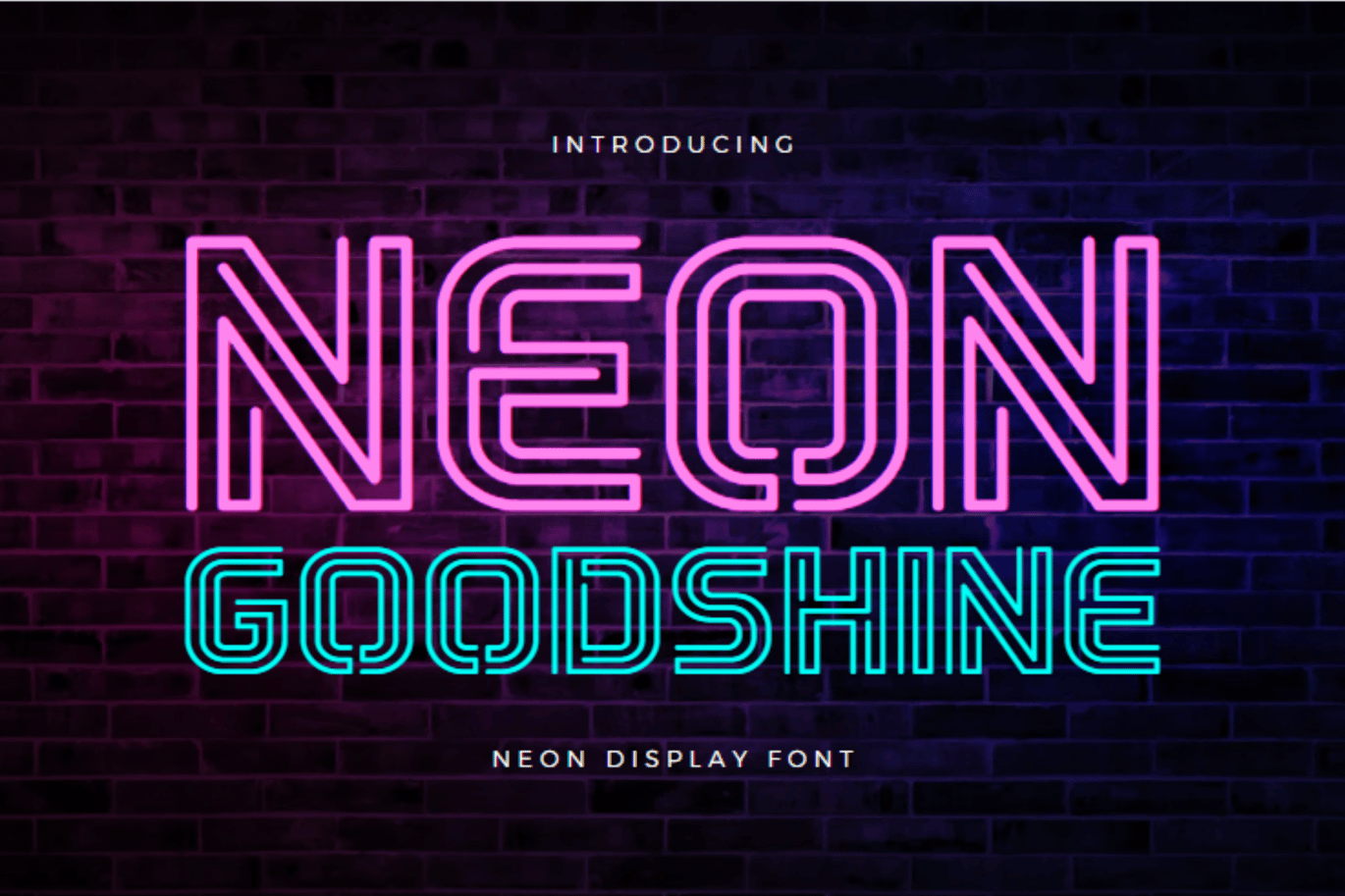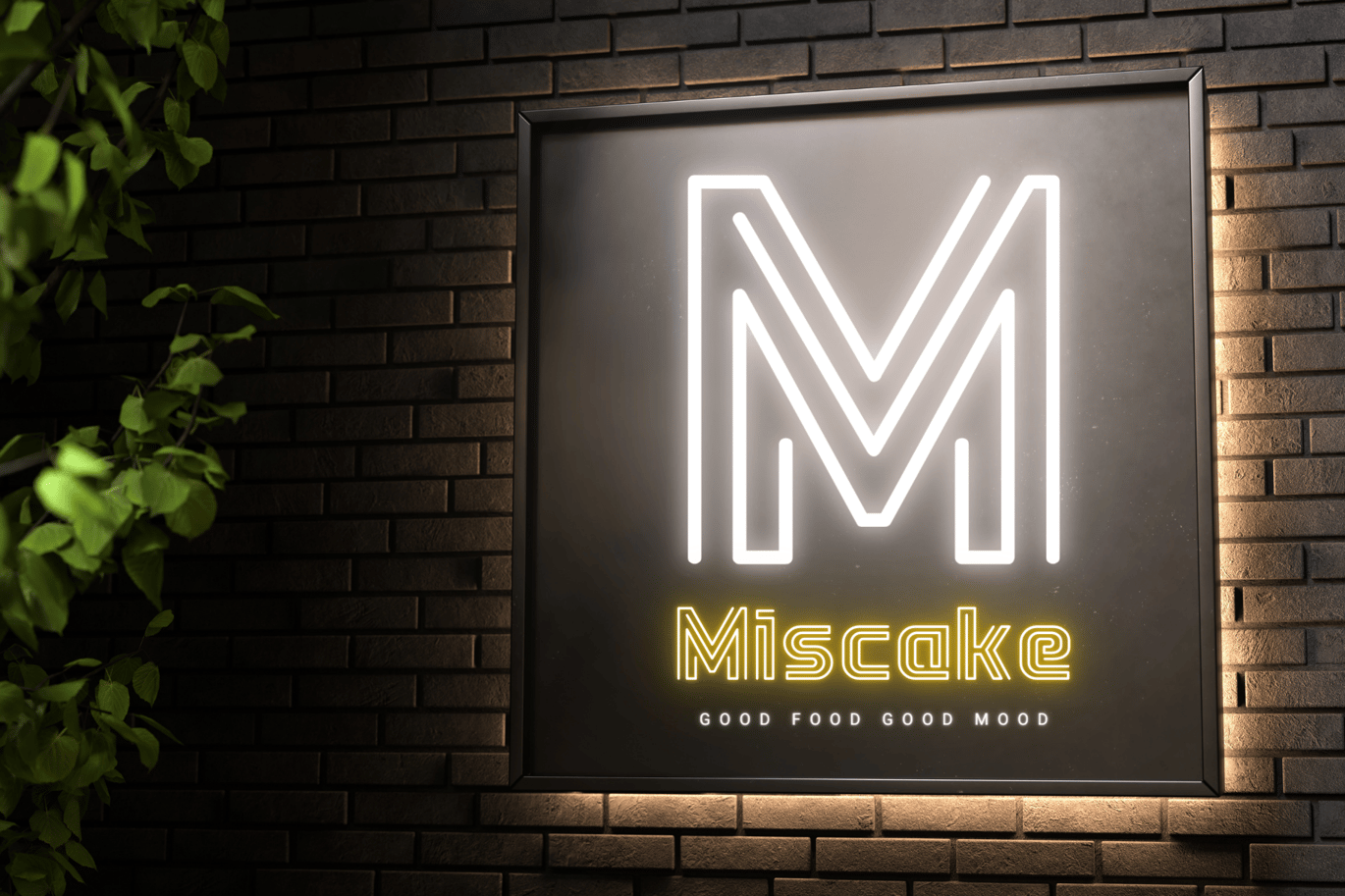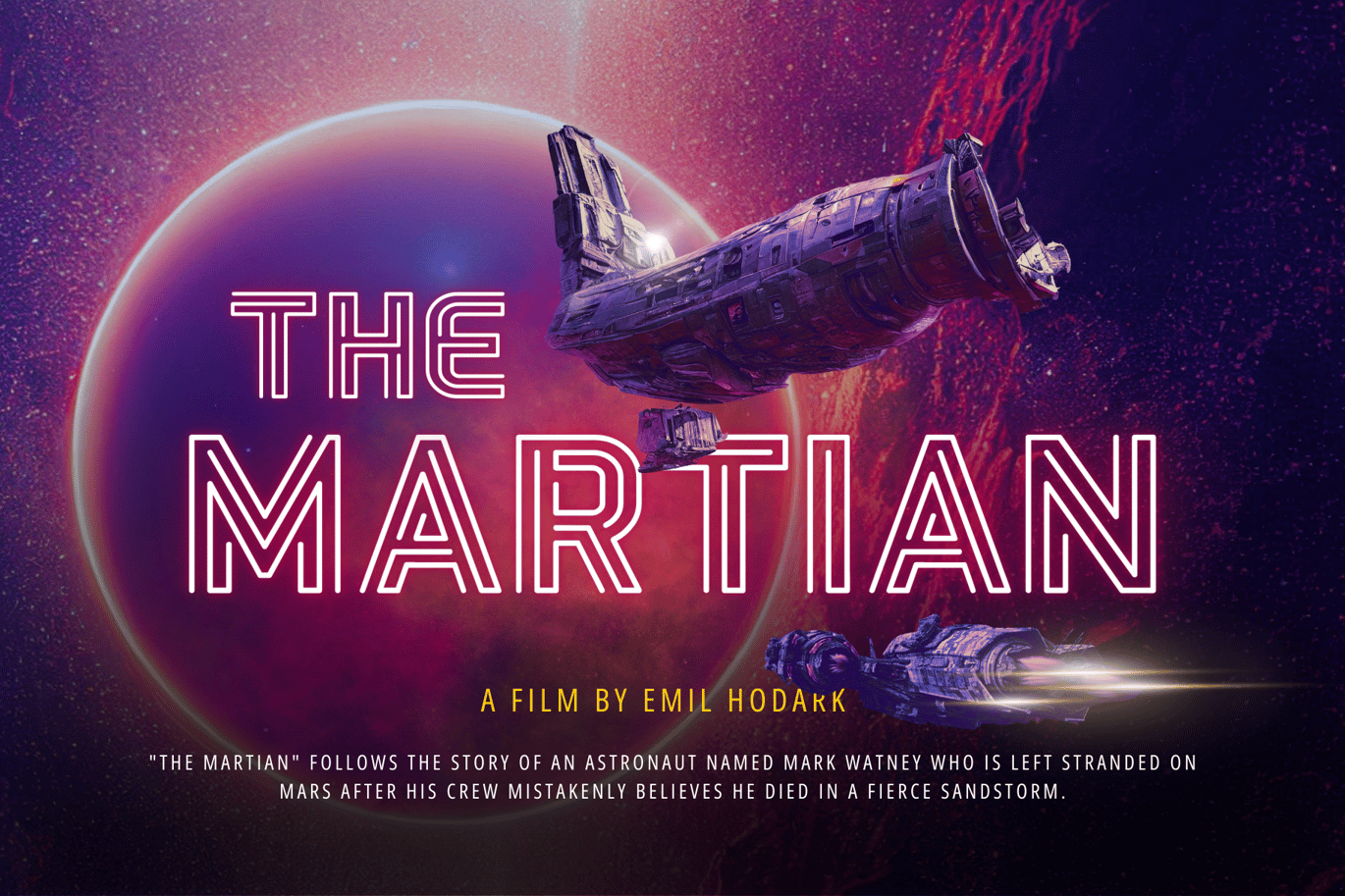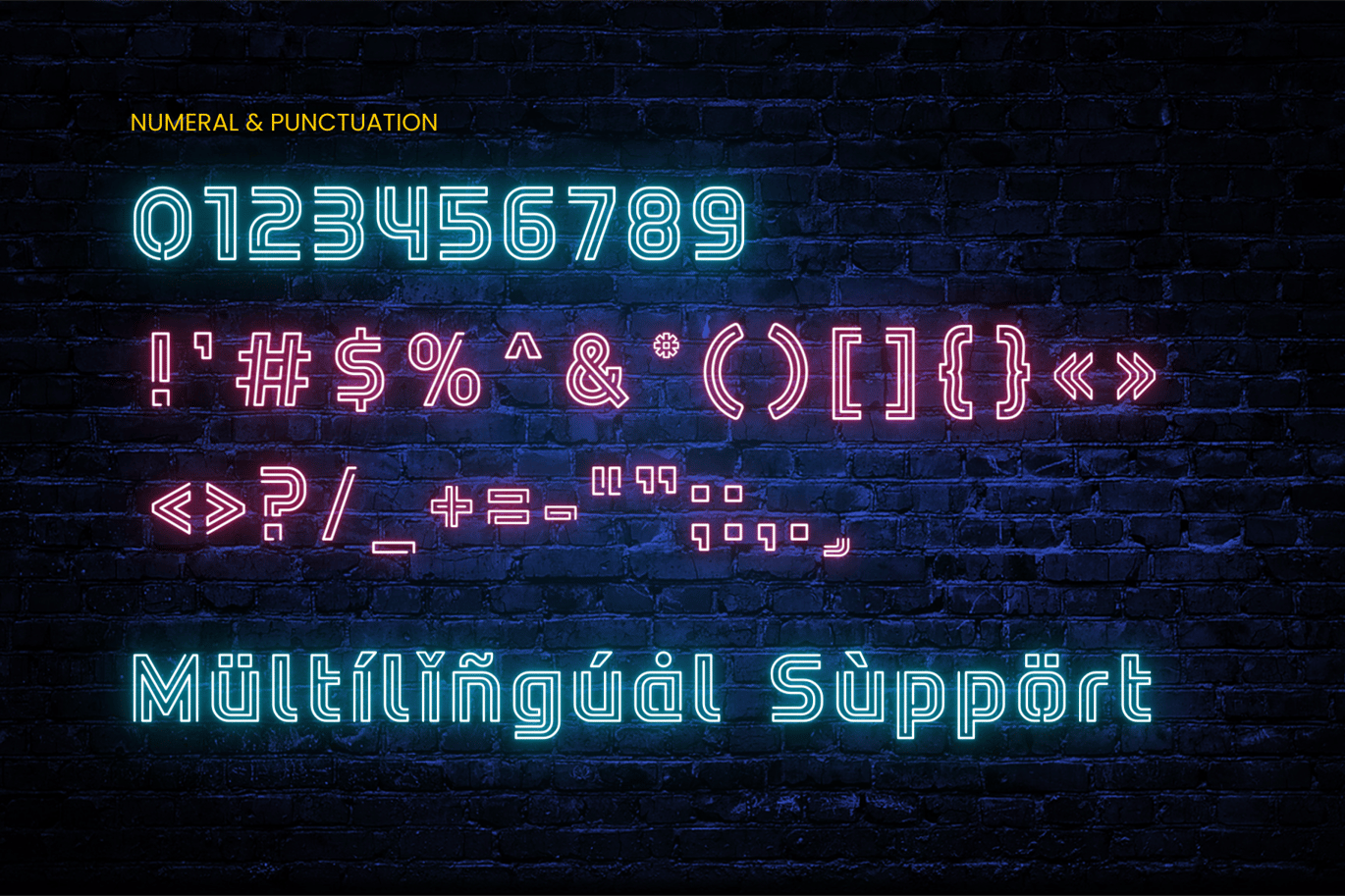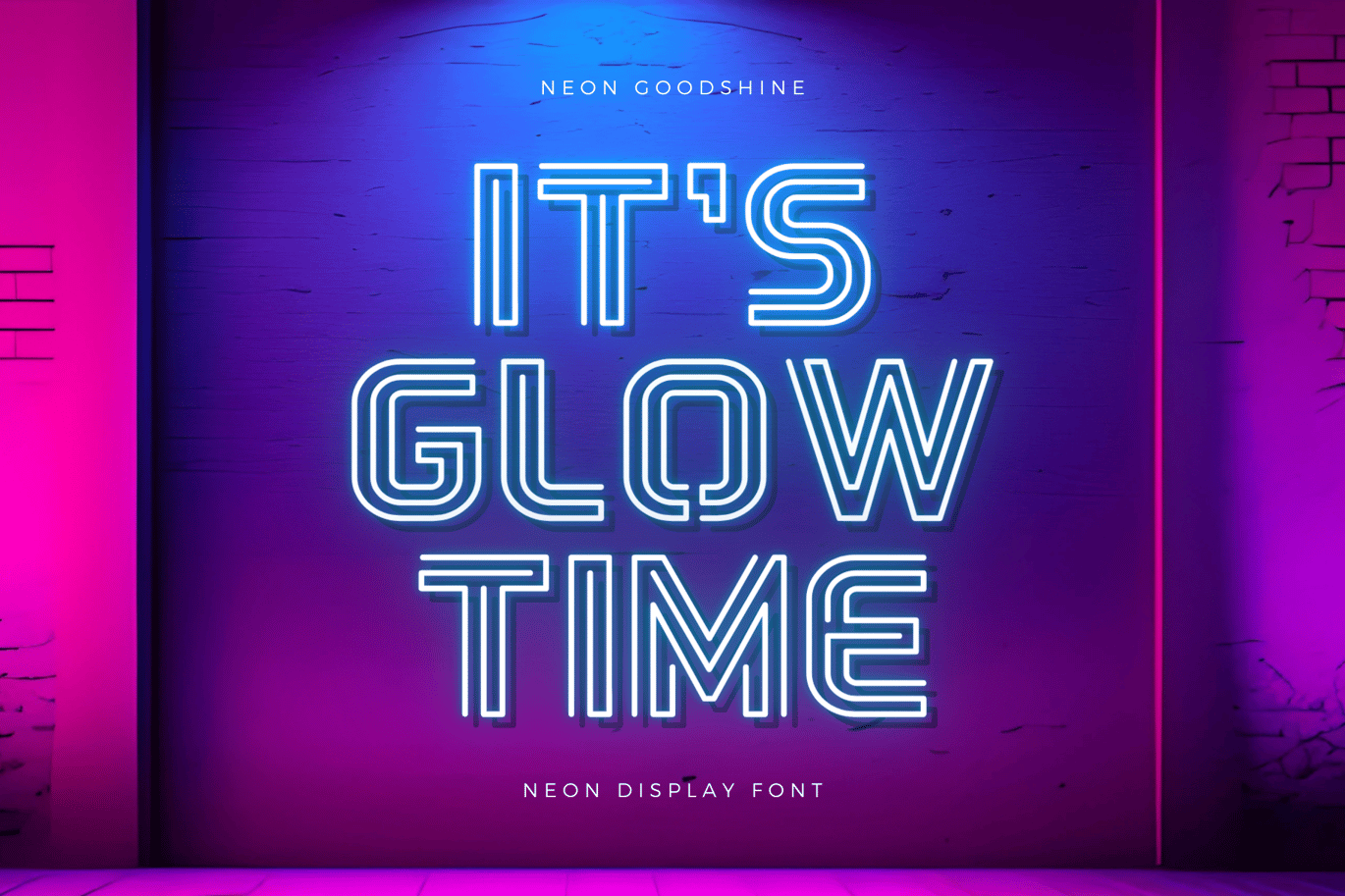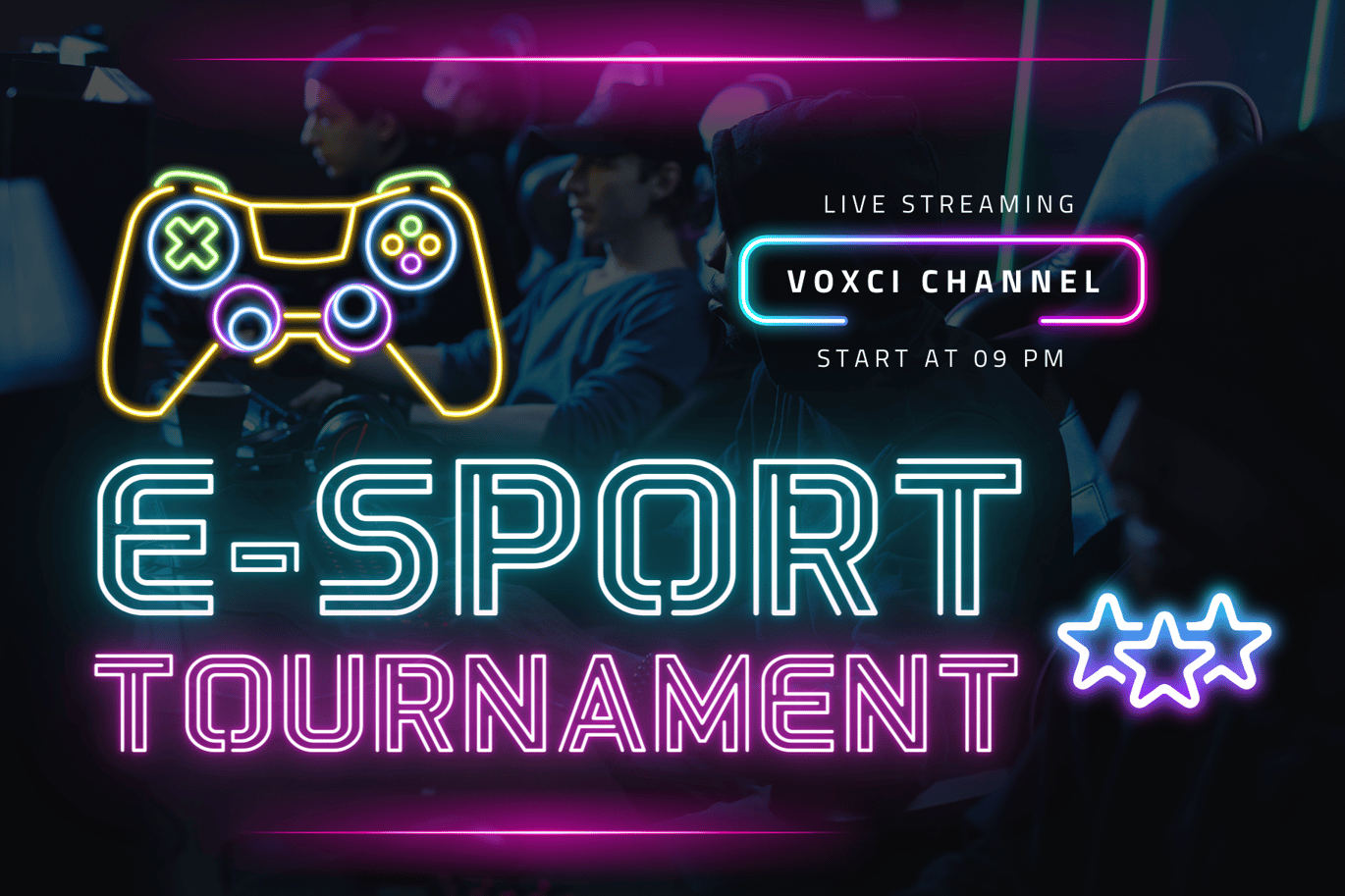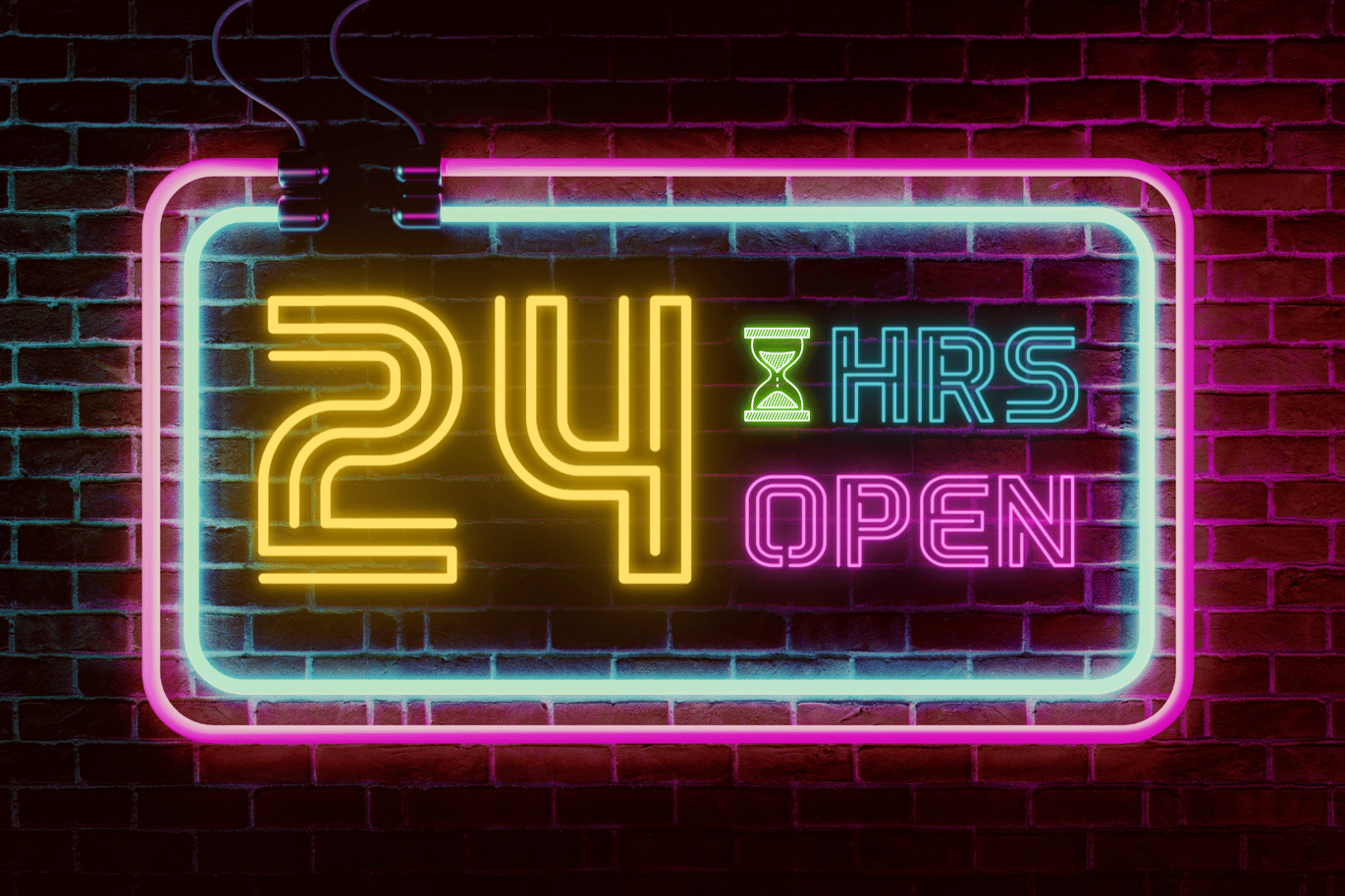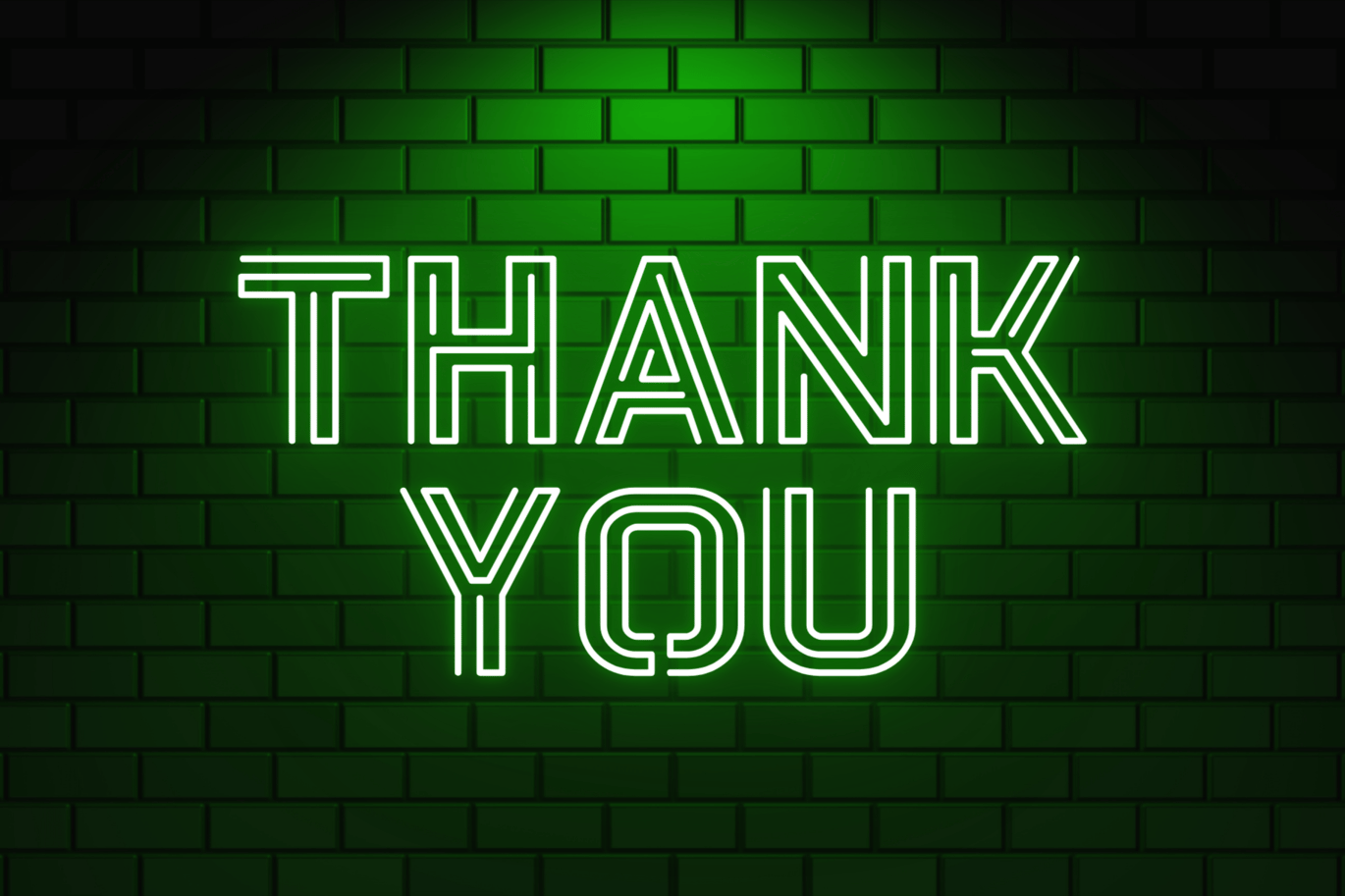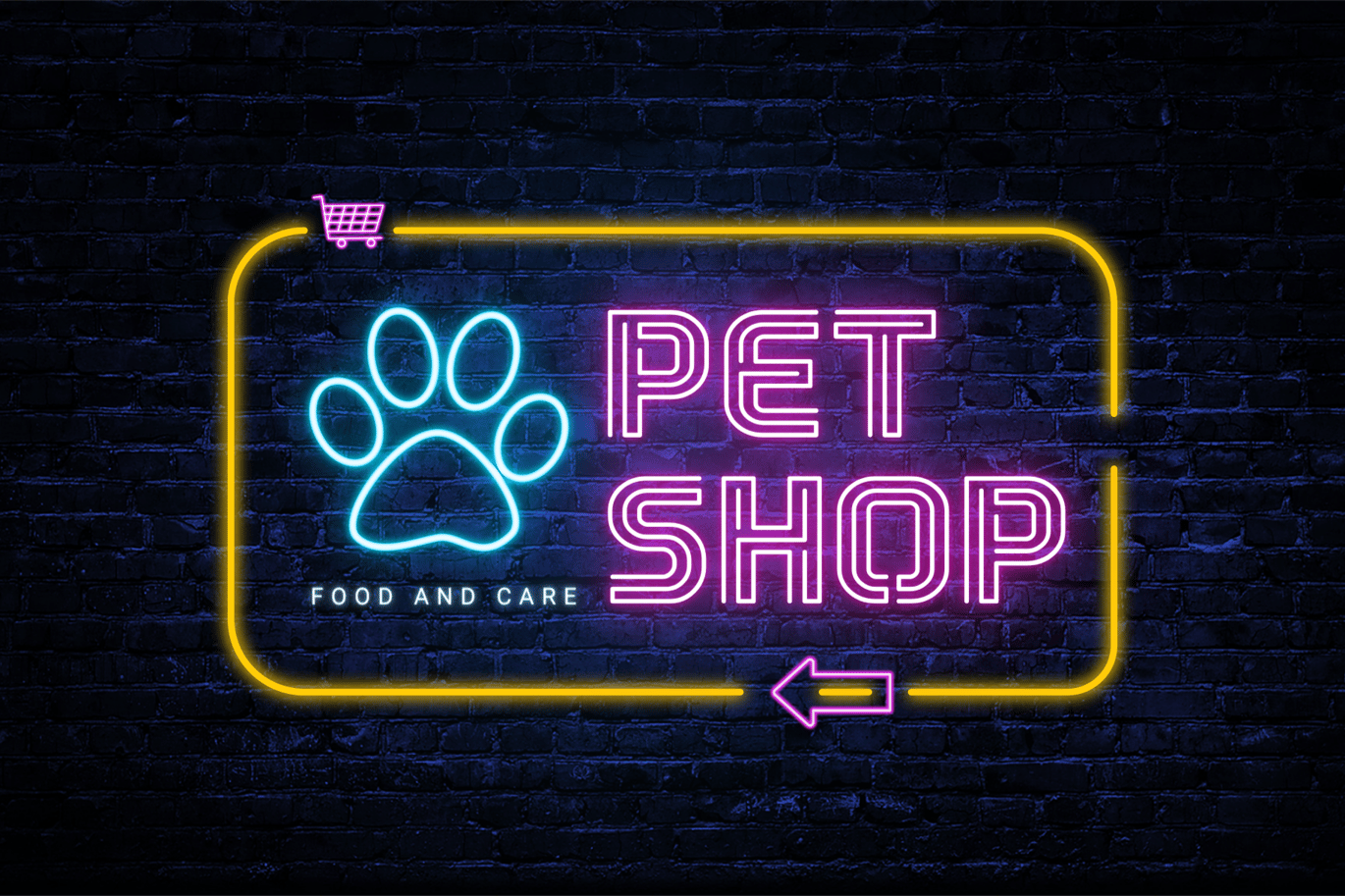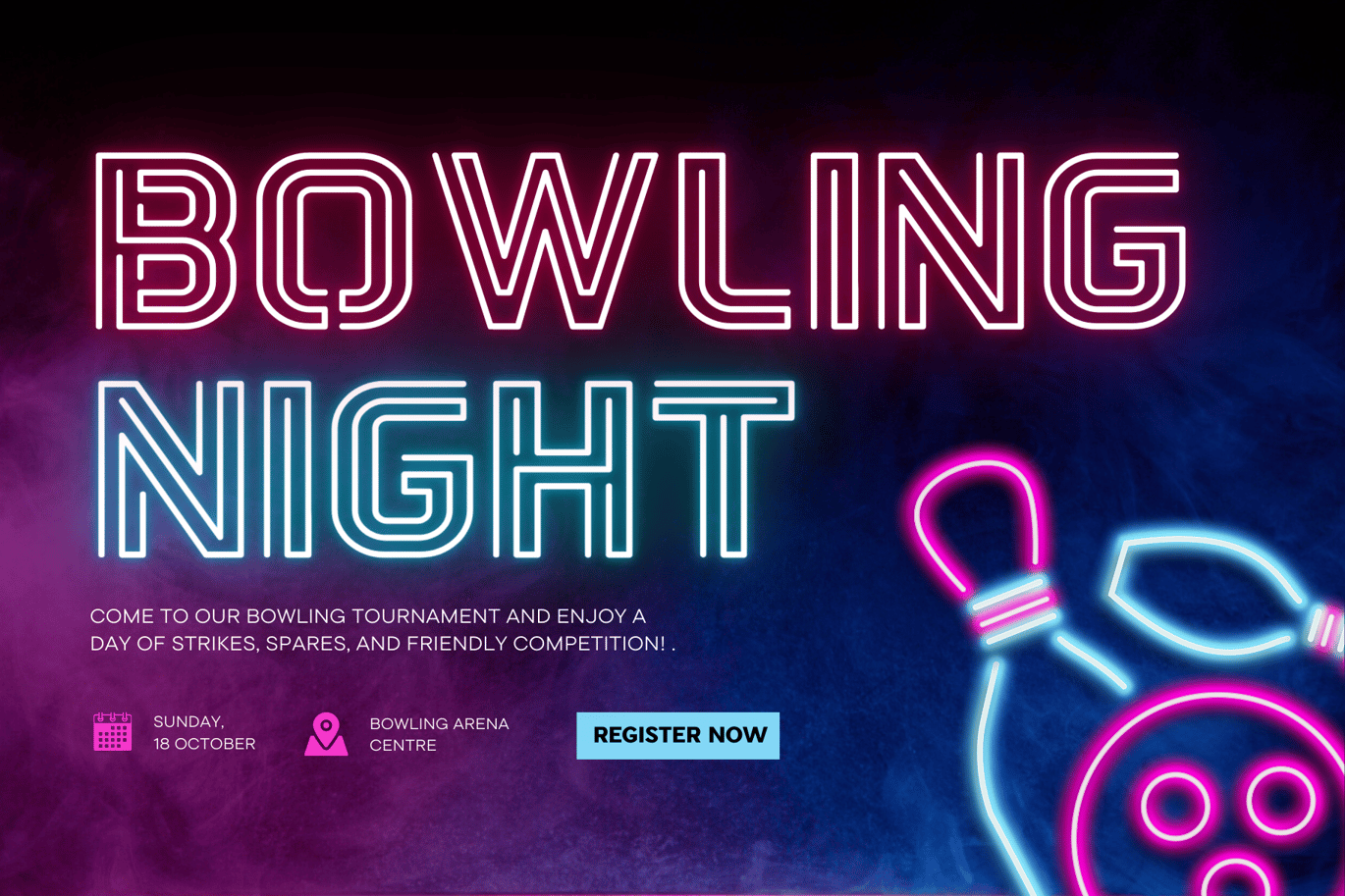
Neon Goodshine – Neon Display Font
Introducing “Neon Goodshine,” a font that illuminates your designs with the vibrant glow of neon lights. With its sleek lines and futuristic design, this font captures the essence of neon signage. Perfect for projects that demand attention and a modern edge, such as event posters, digital artwork, or branding materials. “Neon Goodshine” adds an electrifying touch to your designs, ensuring they shine bright and stand out in any setting.